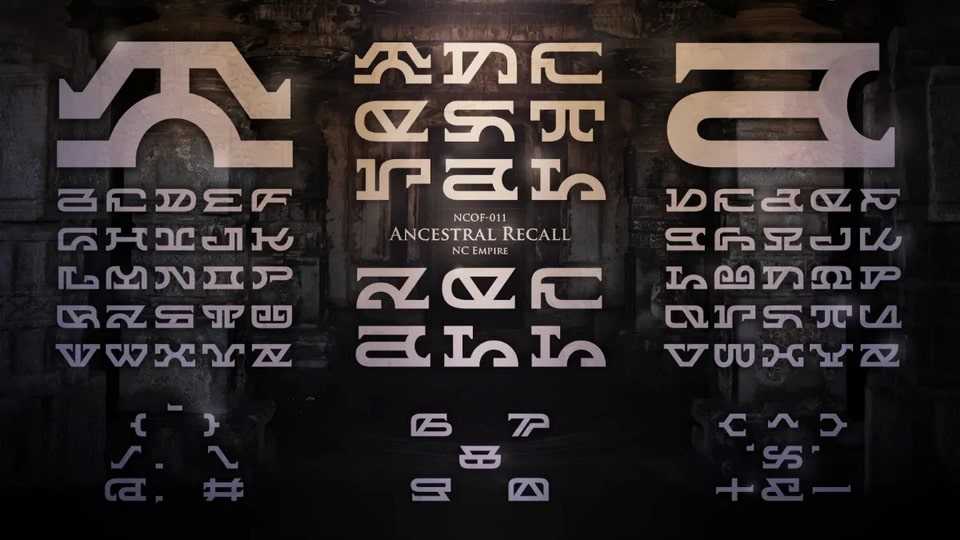
Download Ancestral Recall font, a unique display typeface created with a bold graphic style. With its decorative look Ancestral Recall font is perfect for posters, games and typography artworks.
Designer: NC Empire